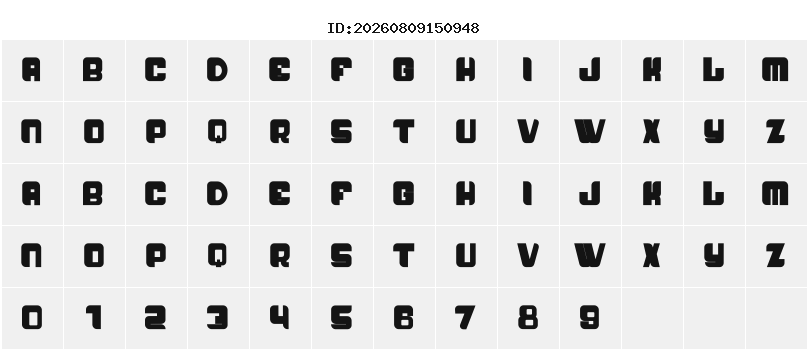
• Font Name: Passeig B
About Passeig B.ttf
Passeig B.ttf is a modern, elegant sans-serif font designed for ultimate readability and visual harmony. Perfect for branding, headlines, web design, and print materials.